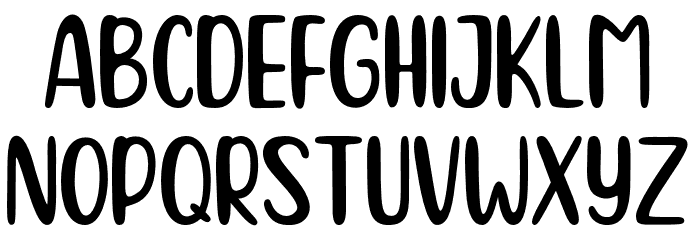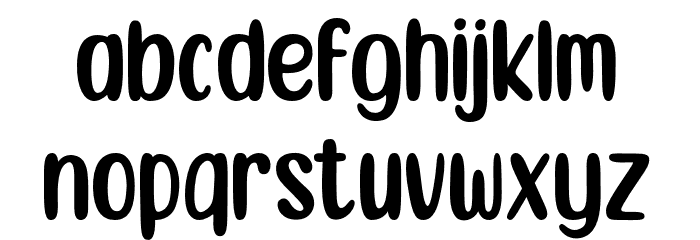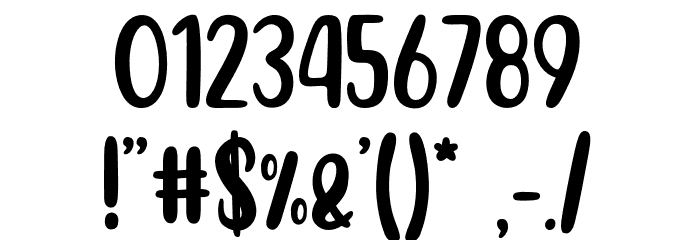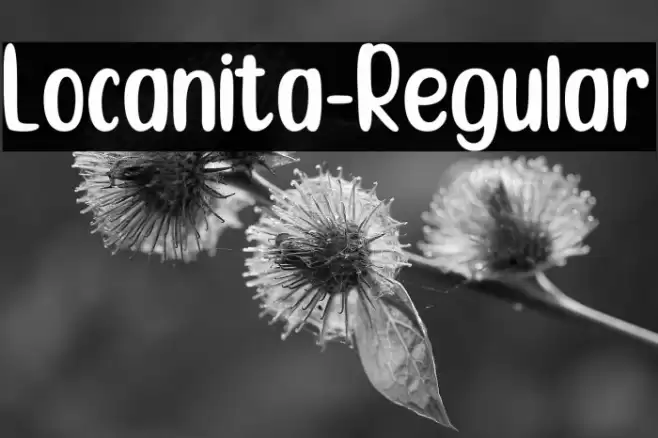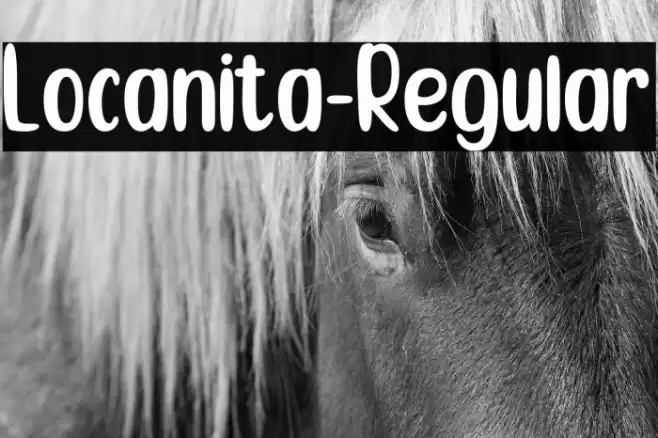
Locanita-Regular Font
This font features a playful and rounded style, characterized by its smooth curves and friendly appearance. The letters are bold and slightly condensed, giving it a compact look while maintaining readability. The lowercase letters mirror the uppercase in style, with a consistent stroke width throughout. The numerals are clear and match the overall aesthetic, making them easy to distinguish. Special characters are well-integrated, maintaining the font's cohesive look. This font's approachable design makes it suitable for a variety of creative projects.
A playful, rounded font with smooth curves and a friendly appearance.
- Font: Locanita-Regular
- Proposed Projects: Ideal for children's books, playful branding, greeting cards, and creative posters.
- Overall Style: Playful